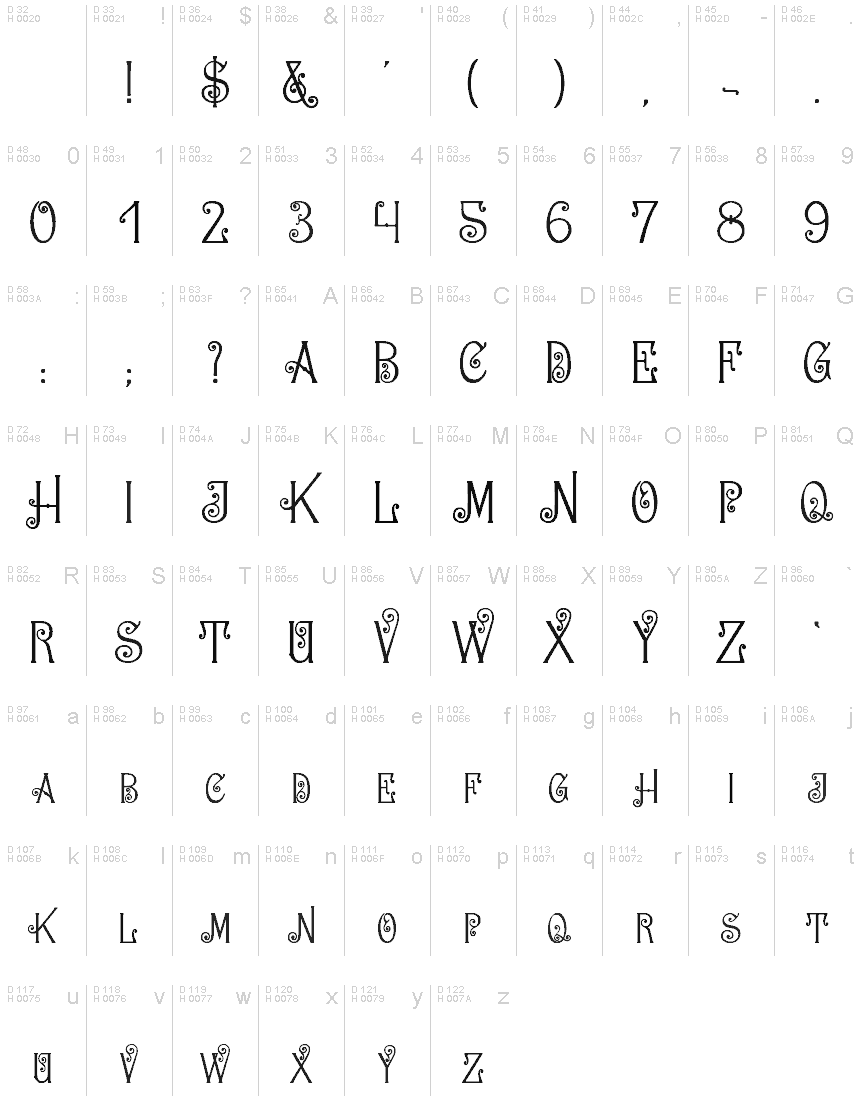
Typornament Prague
This font is inspired by one seen in a book on typographic ornaments, digitized and completed by me. The book: TYPOORNAMENTY, published by Milan Kopřiva in 1991. PLUTO Publishers Prague.